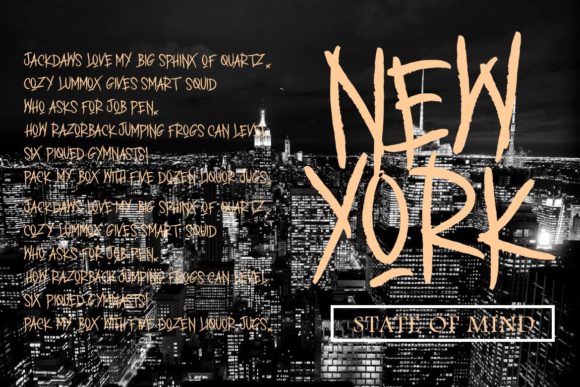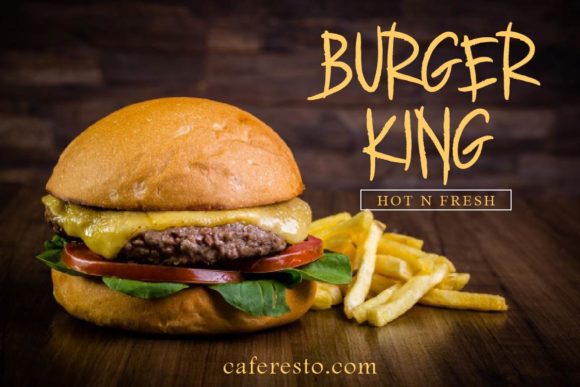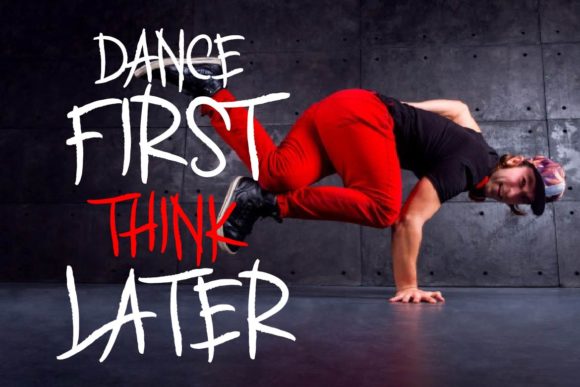
Introduction to Inking Snake Font
Have you ever found yourself staring at a blank canvas, struggling to bring your creative vision to life? The blank page can be daunting, but sometimes all it takes is a spark to set the creative wheels turning. For designers, discovering a unique and high-quality font can be just the thing to get those creative juices flowing. And that’s exactly what you’ll find with the Inking Snake Font – a quirky, yet incredibly versatile display font that’s perfect for a wide range of creative projects.
Whether you’re working on a logo, a social media campaign, or a marketing brochure, the Inking Snake Font is an excellent addition to your design resource library. Its transparent background and high-quality design make it an excellent choice for designers who want to add a touch of personality to their work. And the best part? It’s available for free download, making it an accessible resource for designers of all levels.
Key Features of Inking Snake Font
- Unique and stylish design, perfect for creative projects and artistic expressions
- High-quality font, suitable for both digital and print media, with a transparent background for easy customization
- Perfect for use in logos, branding, packaging, and other design elements where a creative and eye-catching font is required
- Includes a range of glyphs and characters, making it a versatile and comprehensive design resource
Honest Review: Inking Snake Font
I recently stumbled upon the Inking Snake Font, and I must say it’s a unique addition to my design resource library. As a designer, I’m always on the lookout for high-quality fonts to elevate my creative projects. The Inking Snake Font definitely delivers.
What works well: ✨ The font is incredibly versatile, with a range of styles that can be used for both digital and print projects. The transparent background makes it easy to customize and integrate with other design elements. I also appreciate the fact that it’s a free download, making it accessible to designers of all levels.
Here are some of my favorite features:
- Unique, hand-drawn style that adds a touch of personality to any design
- High-quality vectors that ensure crisp, clear typography
However, there are a few limitations: ⚠️ The font is quite limited in terms of character set, so it may not be suitable for extensive text-based projects. Additionally, the free download version has some watermarks that may not be ideal for commercial use.
Overall, I’m impressed with the Inking Snake Font, and I think it’s a great addition to any designer’s toolkit. While it may have some limitations, its unique style and high-quality vectors make it a valuable resource for creative projects.
Inking Snake Font
The Inking Snake Font is a high-quality design resource perfect for creative projects. It’s available for free download and features a transparent background, making it easy to incorporate into your designs.
Tips for Getting the Most Out of Inking Snake Font
To get the most out of the Inking Snake Font, experiment with different font sizes, colors, and styles to create unique and eye-catching designs.
The Inking Snake Font is perfect for creative projects such as logo designs, infographics, and social media graphics. Its high-quality design and transparent background make it a versatile resource for designers and artists.